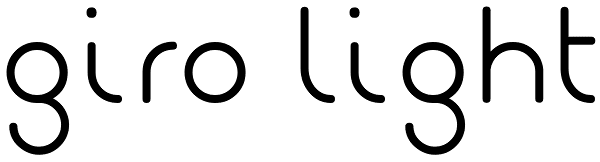
Giro
Giro is an informal sans serif typeface. Designed for an independent music label, it was part of the graduation project of designer Marcelo Magalhães. This typeface can be used on logos and music poster design.
Giro Light
Giro Outline